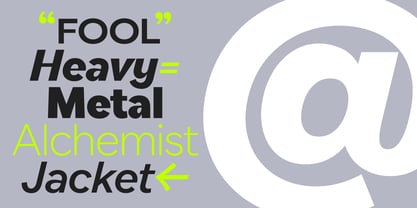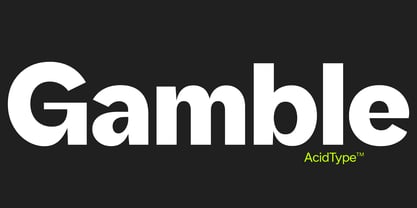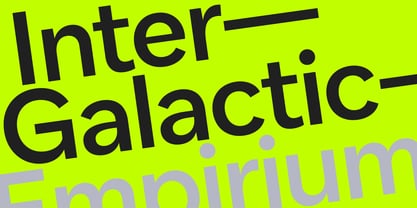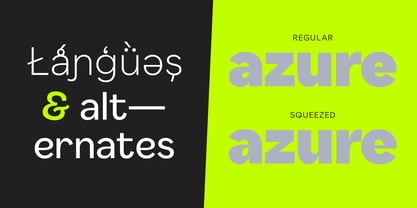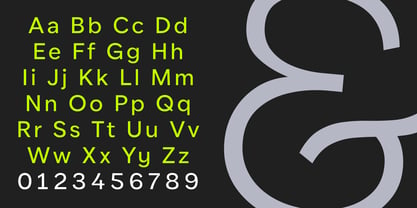
Gamble
The Gamble Font Family was designed by Zac Hallgarten and published by AcidType. Gamble contains 20 styles and family package options. More about this family
Gamble by AcidType™ is a modern geometric sans-serif typeface designed for those who value precision and control. This versatile variable font features three adjustable axes: weight, squeeze, and tilt, providing exceptional flexibility for various design needs. With a rich selection of alternate characters, Gamble enhances typographic creativity and brand uniqueness. Its extensive multilingual support makes it an ideal option for global publishing, editorial projects, branding initiatives, and digital interfaces. Whether used for striking display headlines or compact UI elements, Gamble delivers outstanding performance and visual impact. Fractions and small-caps included.